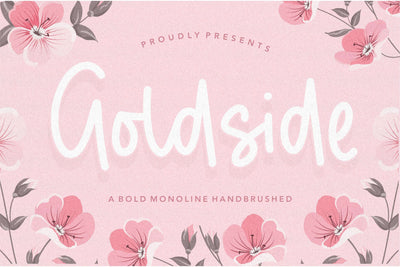
Goldside Bold Monoline Handbrushed Font
Proudly Present, Goldside Font.
Goldside is a Bold Monoline Handbrushed Font.
Goldside is perfect for product packaging, branding project, megazine, social media, wedding, or just used to express words above the background.